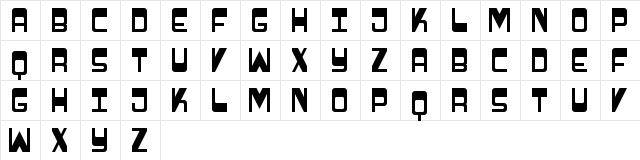
Psychedelic Regular
Design Context for Psychedelic Typeface
Psychedelic is a composed and adaptable typeface that performs quietly and consistently across a wide range of design contexts.